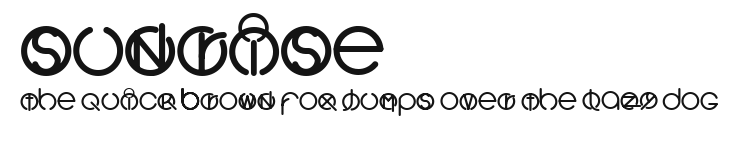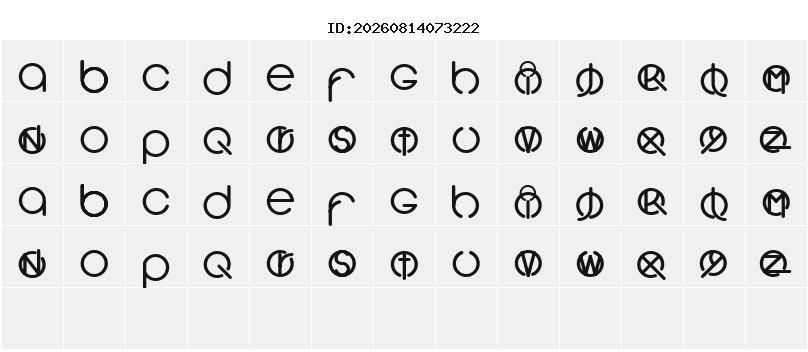
• Font Name: Sunrise
• Designer: Max Castellarnau
About Sunrise.ttf
Sunrise.ttf is a modern, elegant sans-serif font designed for ultimate readability and visual harmony. Perfect for branding, headlines, web design, and print materials.